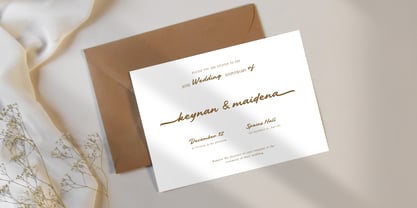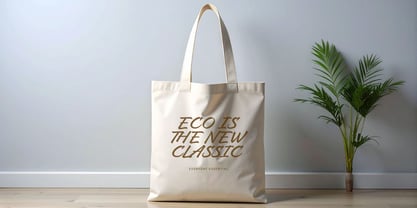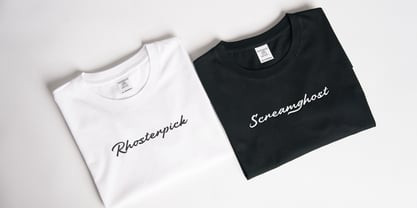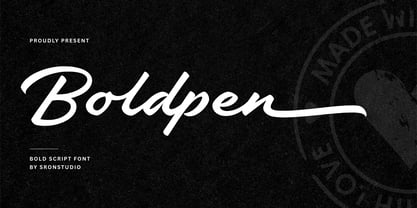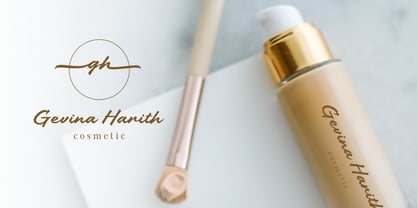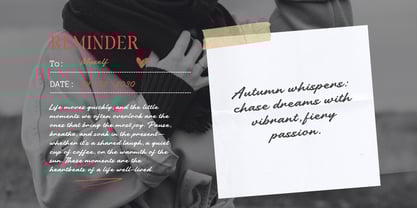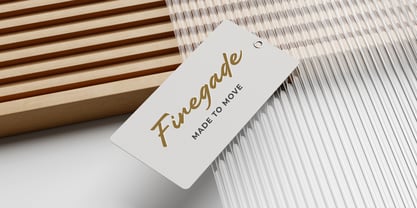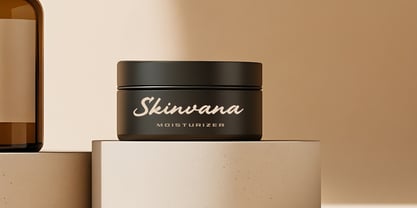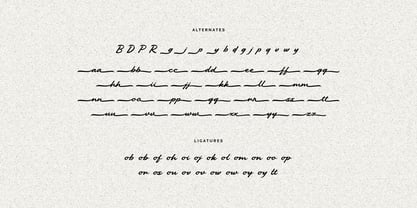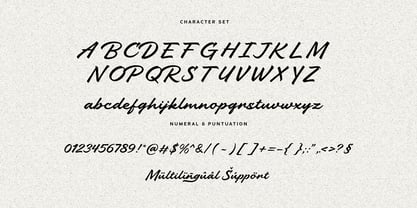
Boldpen
von Sronstudio
Die Schriftfamilie Boldpen wurde von Muhamad Yusron Billah entworfen und von Sronstudio veröffentlicht. Boldpen enthält 1 Stile.
Boldpen is a bold script font with strong, confident strokes and a smooth handwritten flow. Designed to stand out, this font brings energy and personality to logos, headlines, posters, packaging, and social media designs. With its expressive and powerful letterforms, Boldpen is perfect for projects that need a bold, modern, and eye-catching handwritten style. What’s Included: - Alternates & ligatures - Numerals & punctuation - PUA encoded for easy access - Multilingual support - Works seamlessly on Mac & Windows Thank you very much